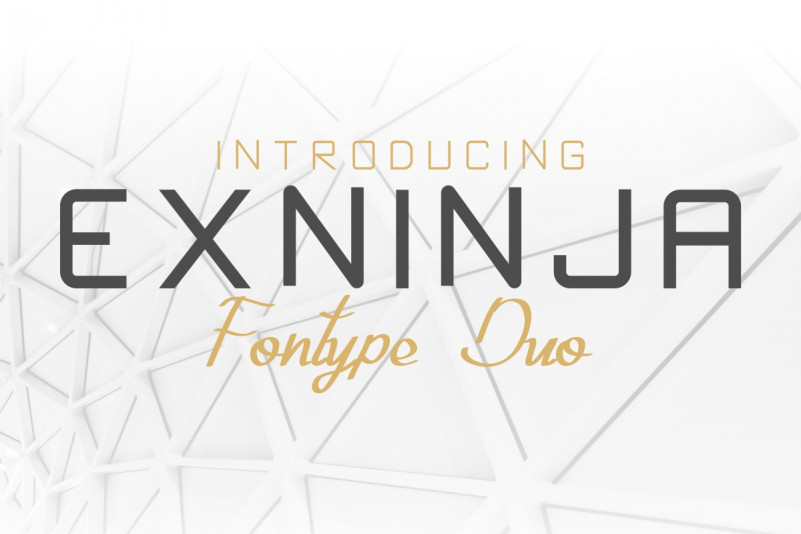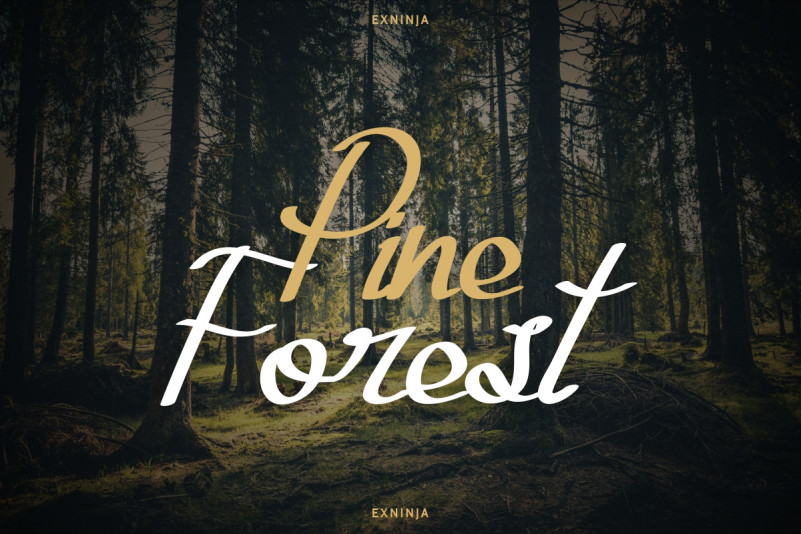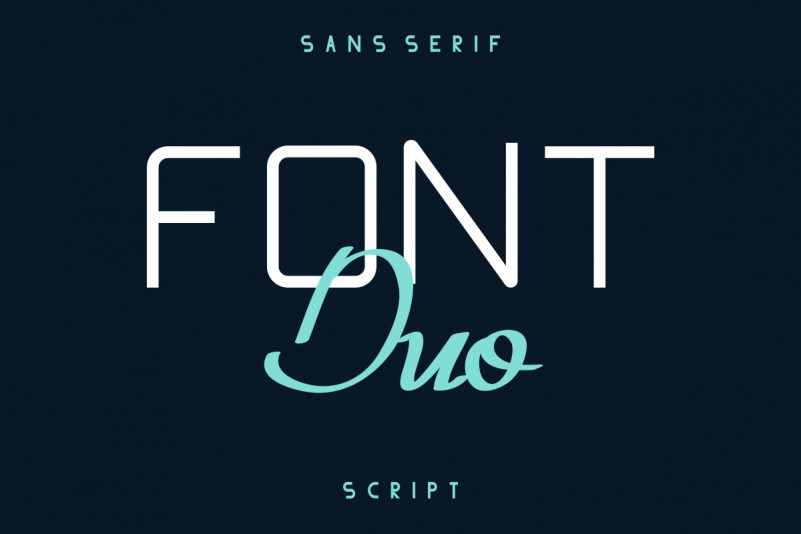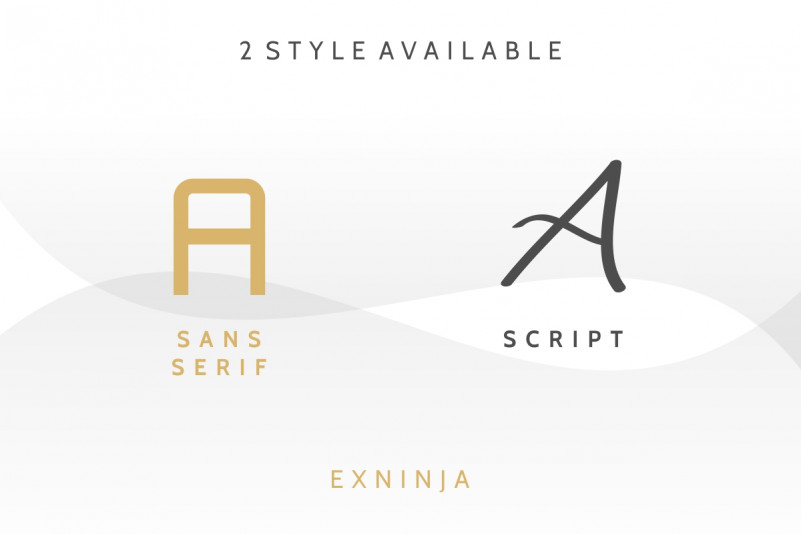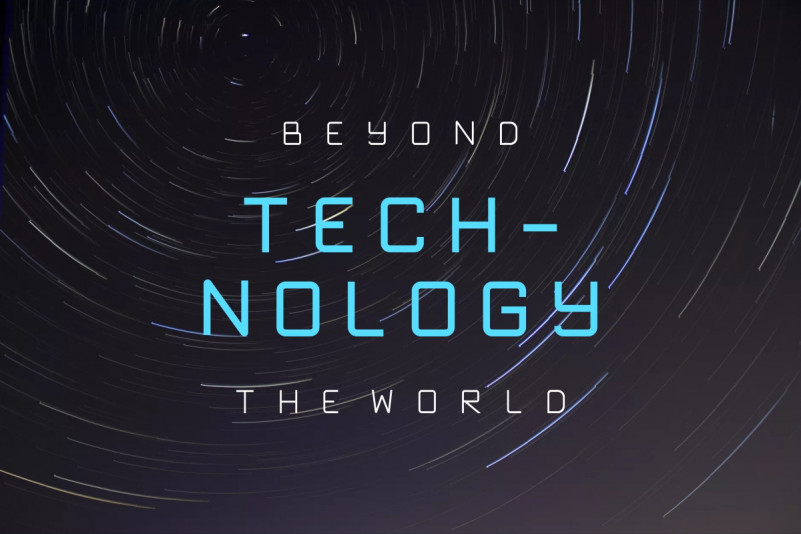
Hello Everybody! Introducing our newest font : Exninja Font Duo! This is a new Duo Font with Sans Serif and Calligraphy Script.
It has a sophisticated styling font which will be perfect for branding, logo, photography, signature, . It is so elegant, classy, starong and beautiful.business card, signage, flyer, brochure etc. There are many industries that is suitable for this font : construction, real estate, services, law firm, wedding, women, health care, skin care etc